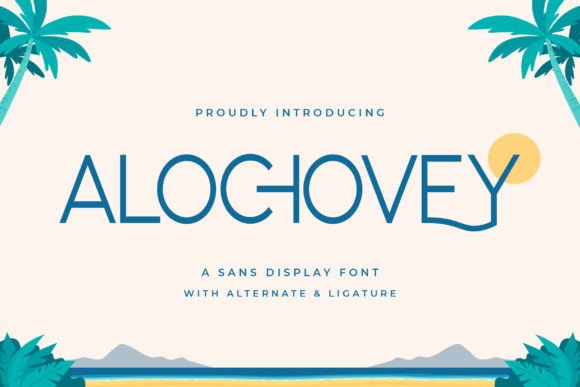
The Ultimate Design Game-Changer: Alochovey Font
I’ll never forget the time I was working on a project for a client who needed a modern, sleek font to elevate their brand. I had spent hours scouring the internet for the perfect one, but nothing seemed quite right. That was until I stumbled upon Alochovey Font. This stunning sans display font has been a game-changer for my design work, and I’m excited to share its awesomeness with you! 😊
An Honest Review of Alochovey Font
• ✨ Versatility: Alochovey Font is perfect for a wide range of projects, from branding and advertising to packaging and digital media.
• ✅ Clean and Modern Design: Its sleek lines and minimalist aesthetic make it perfect for designs that require a contemporary feel.
• 💡 Excellent Legibility: Even at small sizes, Alochovey Font remains clear and easy to read.
• 🎨 Highly Customizable: With a range of OpenType features and glyphs, you can experiment with different styles and variations.
While Alochovey Font is an amazing addition to any design library, there are a few things to keep in mind:
• 🤔 Limited Suitability for Body Text: Due to its modern, sans-serif design, Alochovey Font may not be the best choice for lengthy blocks of text.
• ⚠️ Occasional Kerning Issues: As with any font, you may encounter some kerning issues, especially when using certain character combinations.
The Designer Inspiration Behind Alochovey Font
Although the origins of Alochovey Font are shrouded in mystery, it’s clear that its designer was inspired by the world of modern design and typography. With its sleek lines and minimalist aesthetic, Alochovey Font embodies the perfect blend of form and function.
Font Name Alochovey Font
Author TypeFactory
Q: What type of projects is Alochovey Font best suited for?
A: Alochovey Font is perfect for branding, advertising, packaging, and digital media projects that require a modern, sleek aesthetic.
Q: Can I use Alochovey Font for body text?
A: While possible, Alochovey Font may not be the best choice for lengthy blocks of text due to its modern, sans-serif design.
Q: Is Alochovey Font highly customizable?
A: Yes, Alochovey Font features a range of OpenType features and glyphs, allowing you to experiment with different styles and variations.